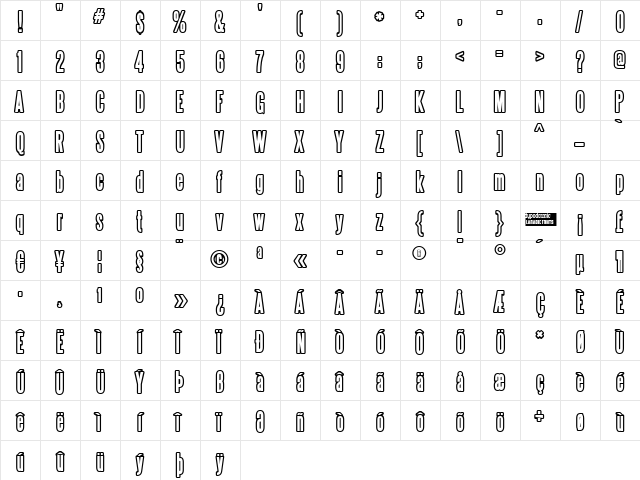
Steelfish Outline Regular
Design Context for Steelfish Outline Typeface
Steelfish Outline is built around its visual character rather than neutral utility — its distinctive forms are designed to make an impression at display sizes.
Font Pairing: Pair with a clean neutral sans-serif for body copy to let Steelfish Outline's character lead without overwhelming the composition.
Pro Tip: Treat Steelfish Outline as the centrepiece of your typographic hierarchy. One strong heading set in a decorative face can carry an entire layout.